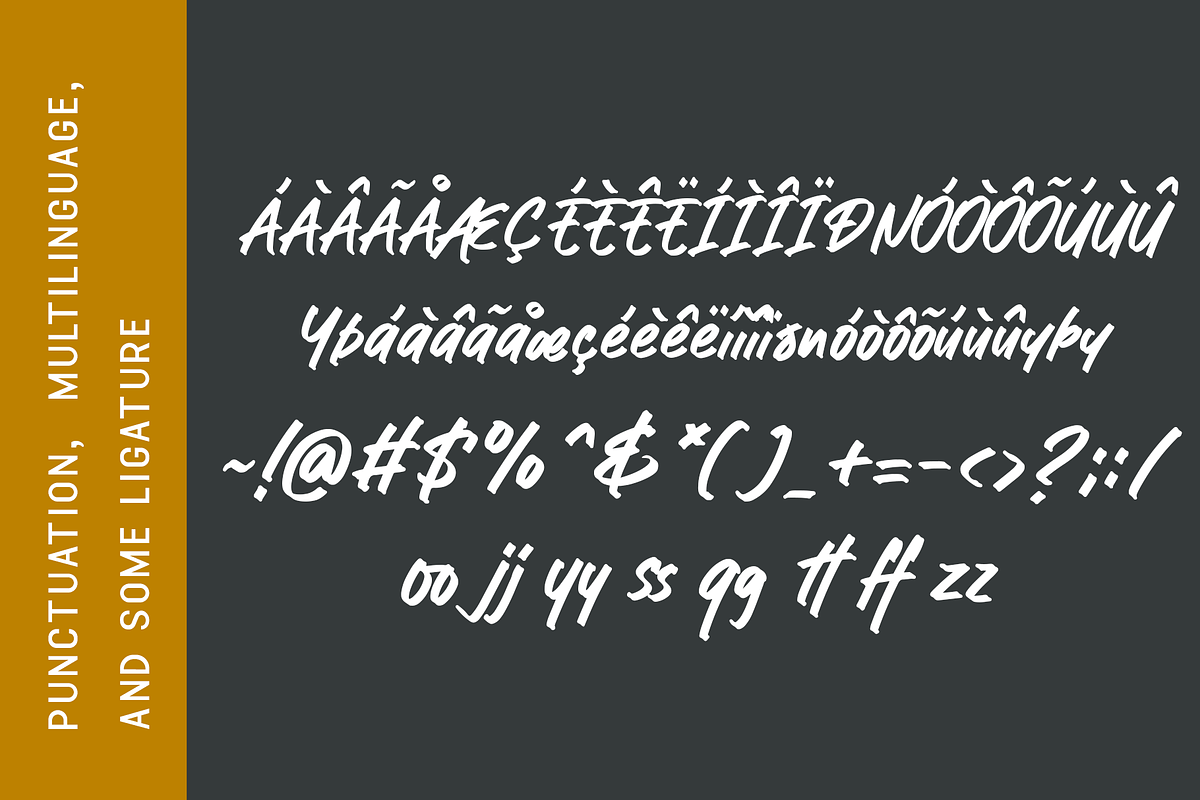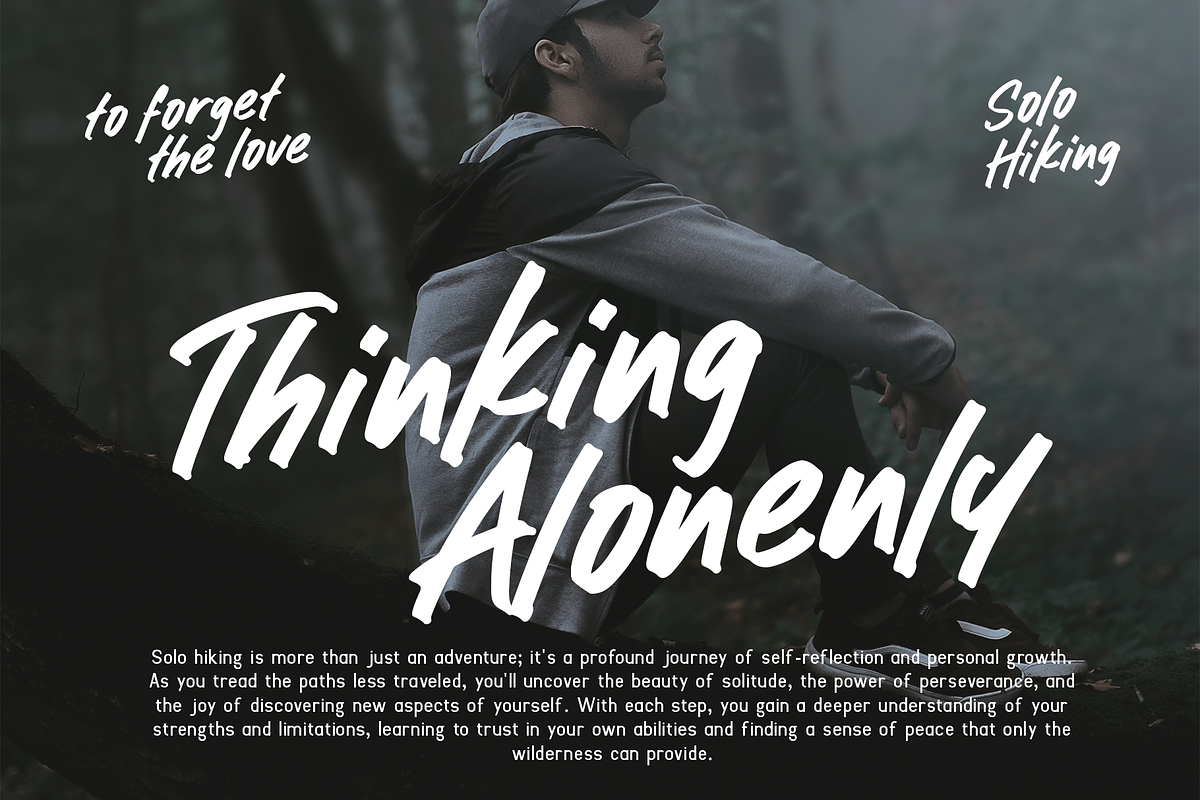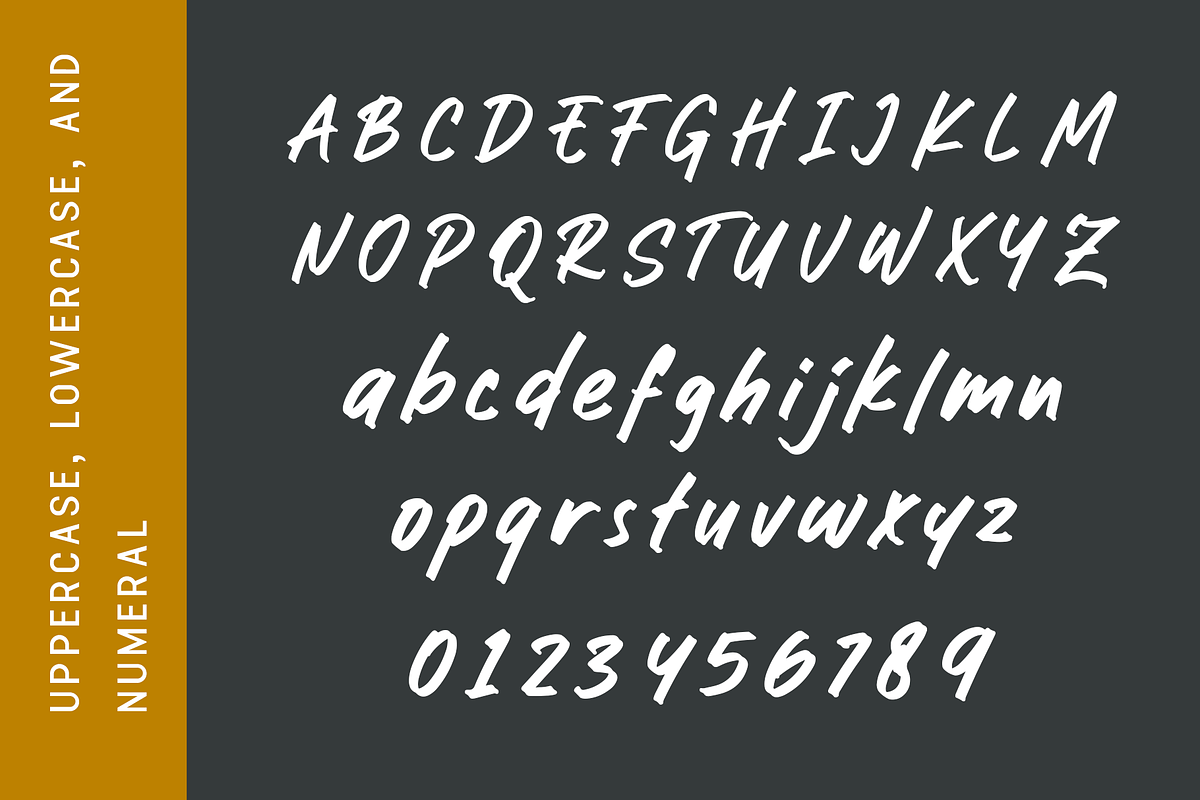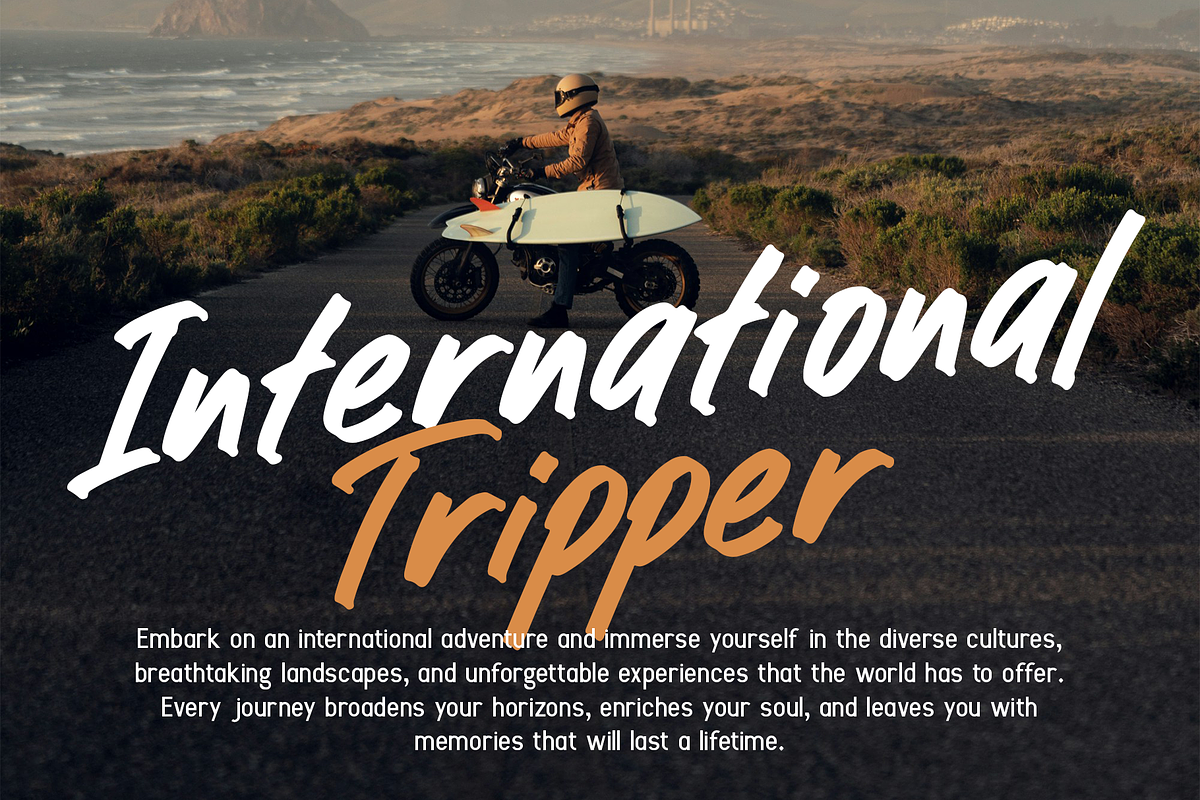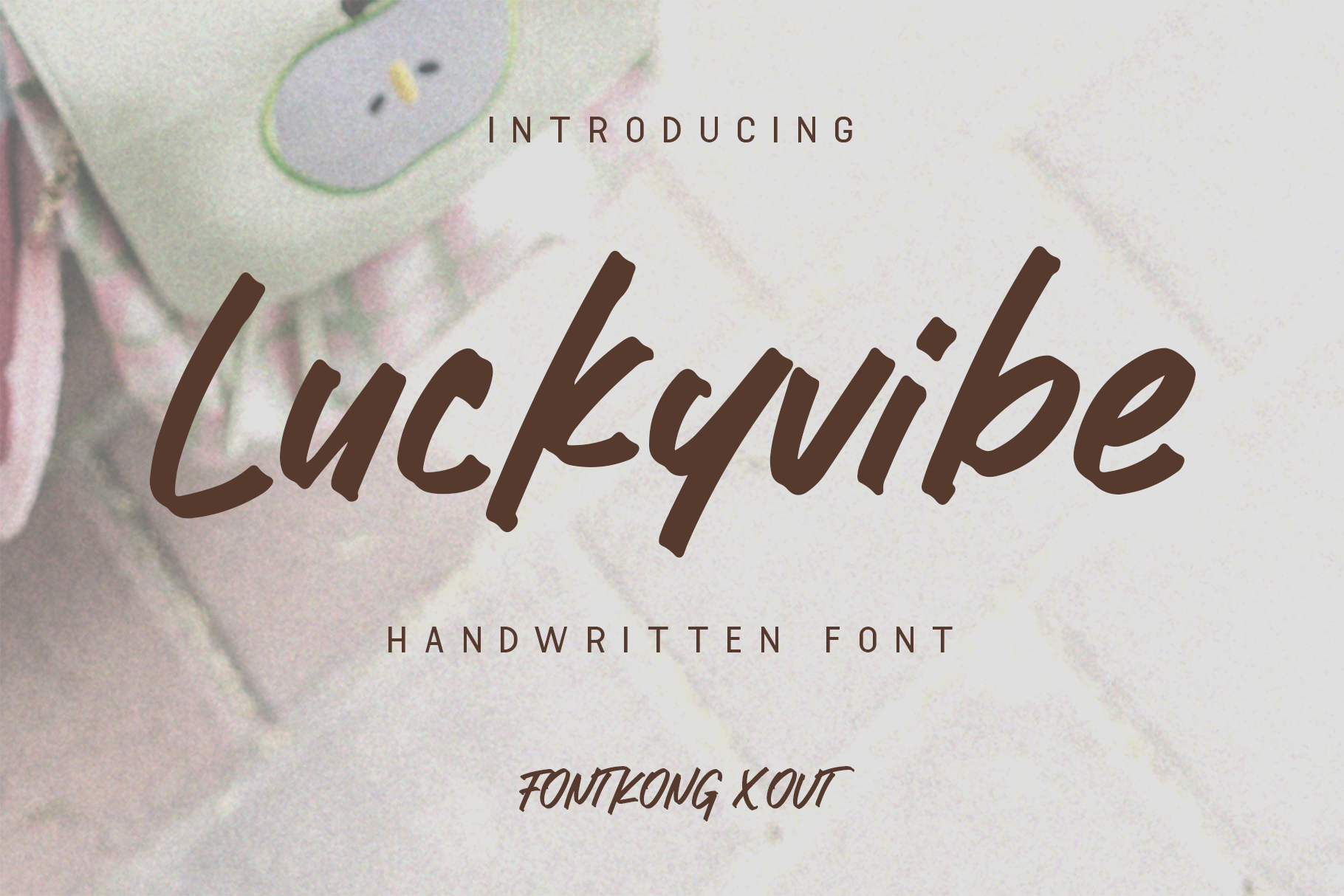
Luckyvibe - A Handwritten Font
Luckyvibe is a cheerful and lively handwritten font designed to infuse your design projects with positivity and warmth. With its playful strokes and relaxed letterforms, Luckyvibe is perfect for joyful invitations, friendly greeting cards, casual branding, and uplifting quotes. This font captures the essence of free-spirited handwriting, ensuring your work stands out with a vibrant and approachable style.
Crafted with a carefree touch, Luckyvibe features flowing and natural characters that offer excellent readability and visual charm. Its handwritten style makes it ideal for both display and text purposes, providing a warm and inviting presence. The font’s versatility allows it to adapt seamlessly to various design contexts, from digital projects to printed materials, making it a valuable asset for any designer aiming to create happy and engaging visuals.
Elevate your design projects with Luckyvibe, a font that embodies the joy and spontaneity of handwritten creativity. Its unique style and adaptability make it an essential addition to any designer’s toolkit for crafting vibrant and captivating designs. Enhance your work with Luckyvibe and experience the delight of handwritten typography.